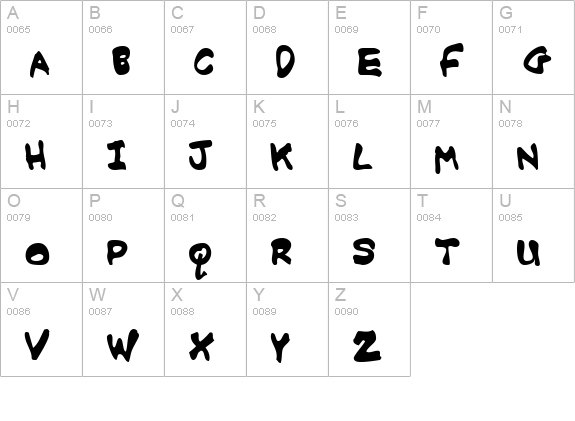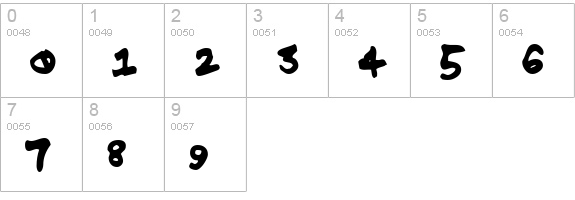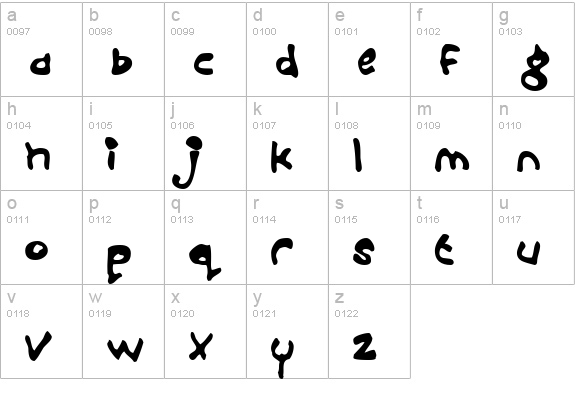
Croobie Font Details
Croobie font is a stylish and versatile typeface that brings a touch of elegance to any design project. With its sleek lines and modern aesthetic, Croobie font is perfect for use in branding, advertising, or any creative endeavor. This font exudes sophistication and class, making it ideal for both digital and print applications. What makes Croobie font even more appealing is that it is freely available to download at FontsMarket.com. This means that you can easily access this high-quality font without any cost, making it a valuable addition to your font library. Whether you're a designer looking to elevate your projects or a business owner seeking a unique font for your brand, Croobie font is the perfect choice for adding a touch of refinement and style. Download it today and see how Croobie font can enhance your designs effortlessly.